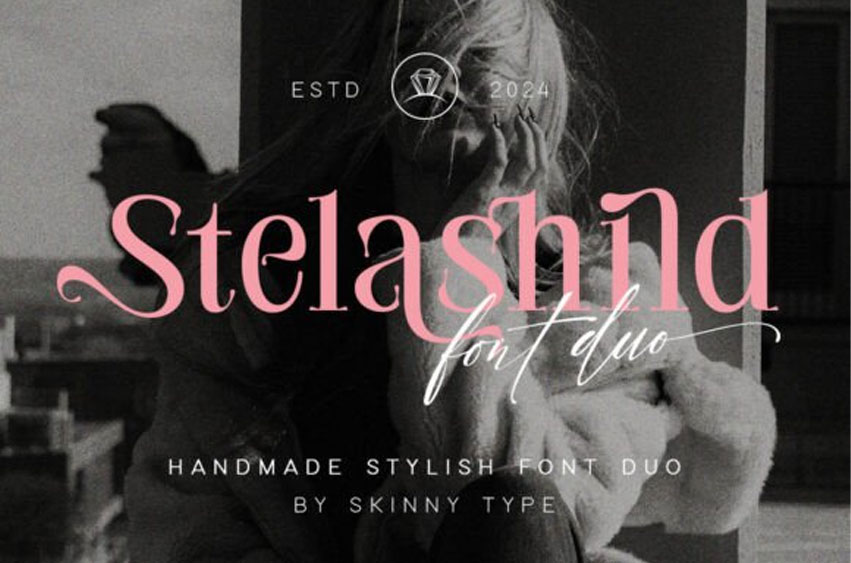
Stelashild Font
Stelashild Font Duo is a majestic, luxurious, and impactful handwritten script font, a serif font with clean ligatures and alternates, making for a harmonious pair.
Most suitable for poster design, headlines, quote writing, pamphlets, greeting cards, product packaging, book covers, logotypes, album covers, etc.